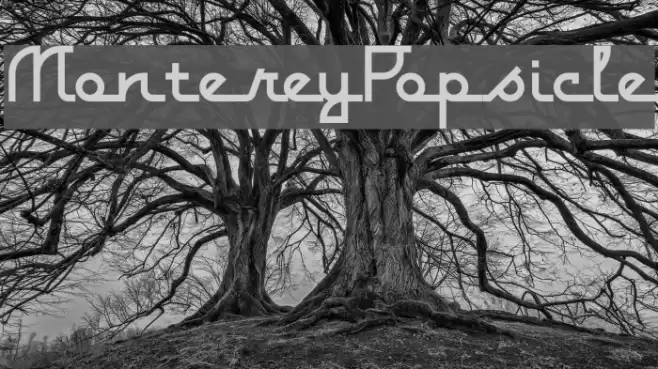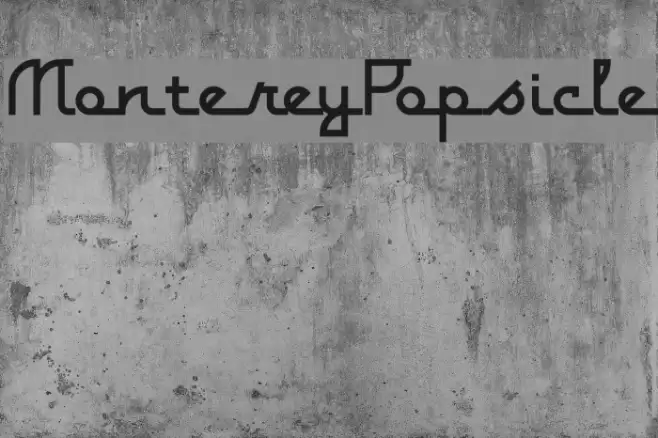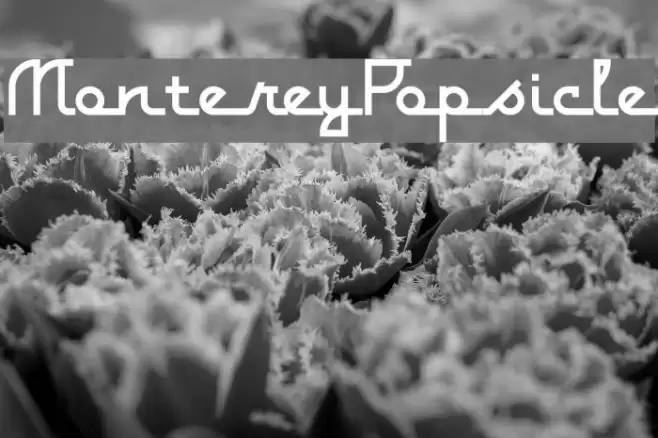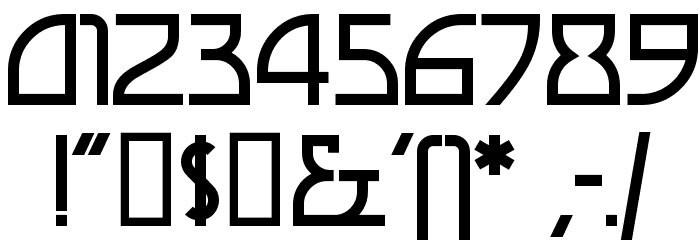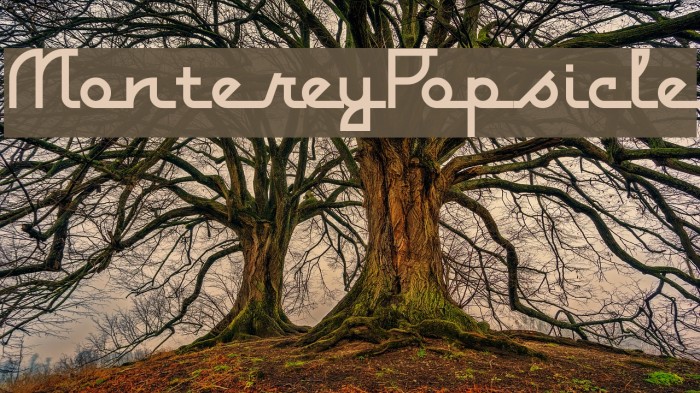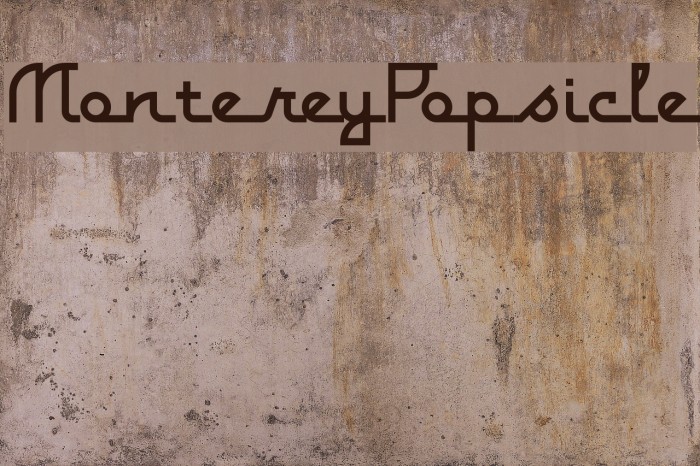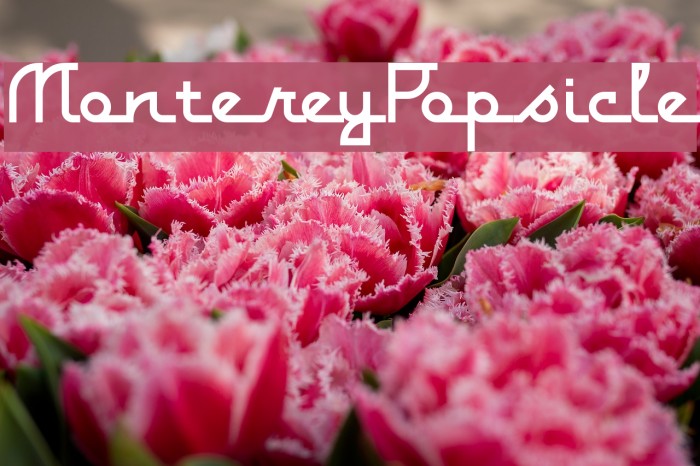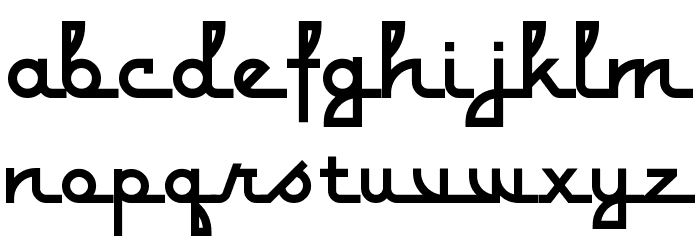
MontereyPopsicle Font
MontereyPopsicle Description
This font exhibits a unique blend of geometric and cursive elements, creating a distinctive and playful appearance. The uppercase letters are characterized by angular lines and sharp corners, while the lowercase letters maintain a more fluid and connected style. The numerals and special characters continue this theme with bold, structured shapes that add to the overall aesthetic. The font's design is both modern and retro, making it versatile for various creative projects. Its bold strokes and consistent line weight provide a strong visual impact, ensuring readability and style.
A playful font combining geometric and cursive elements with bold strokes from Script fonts.
- Proposed Projects: Ideal for branding, posters, and creative digital designs where a unique and eye-catching typeface is desired.